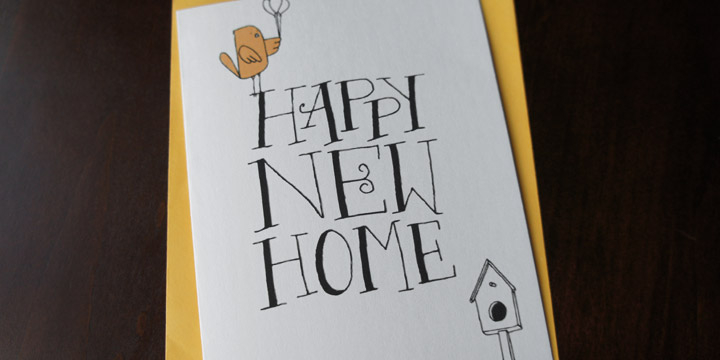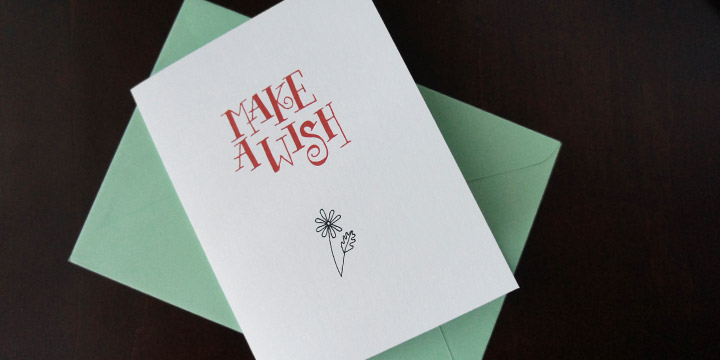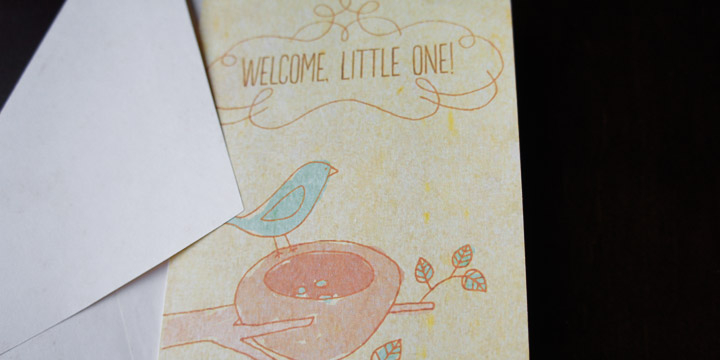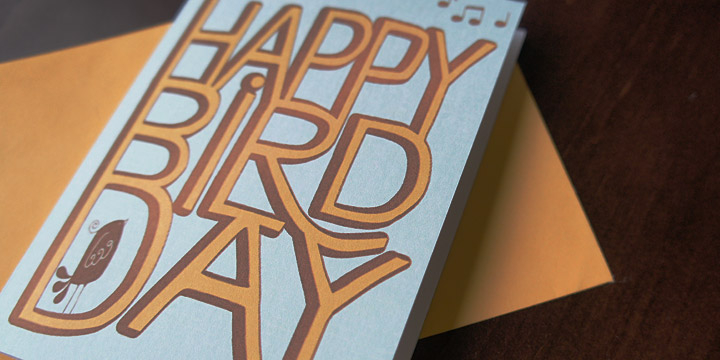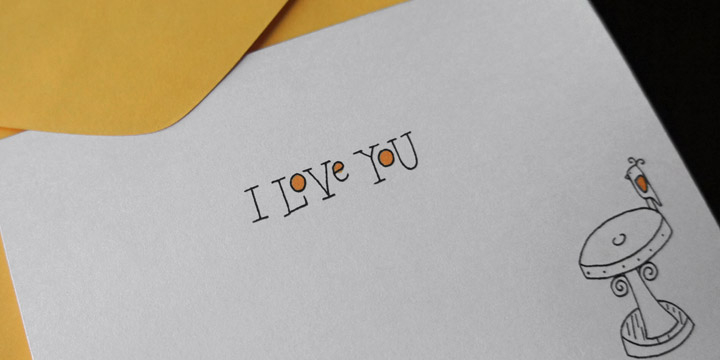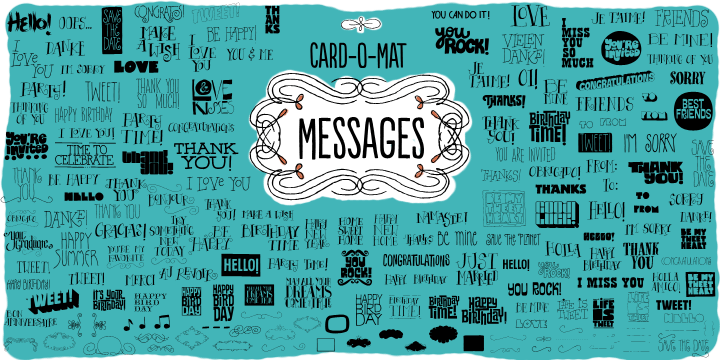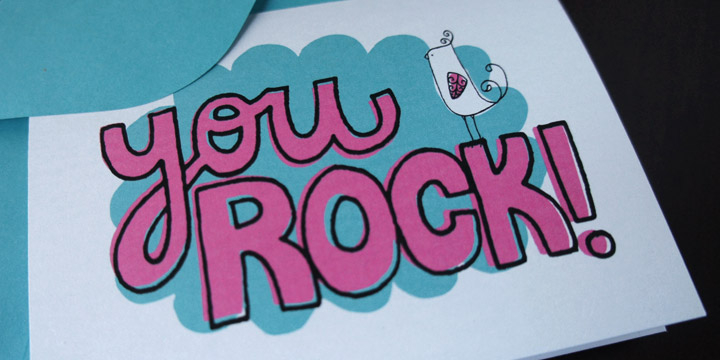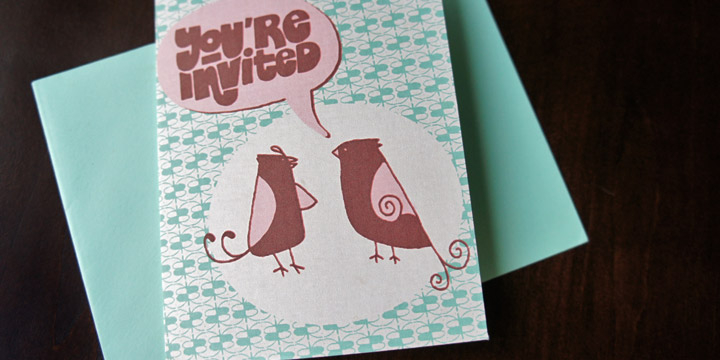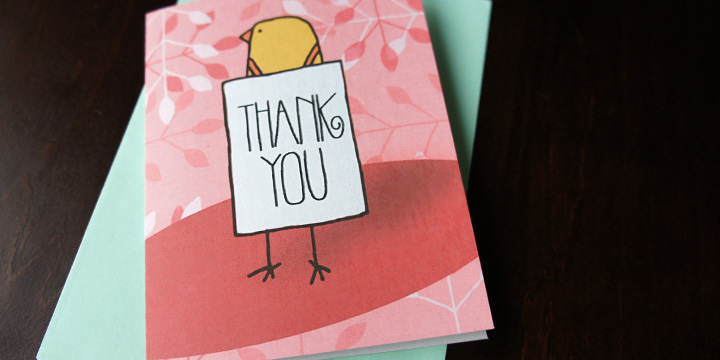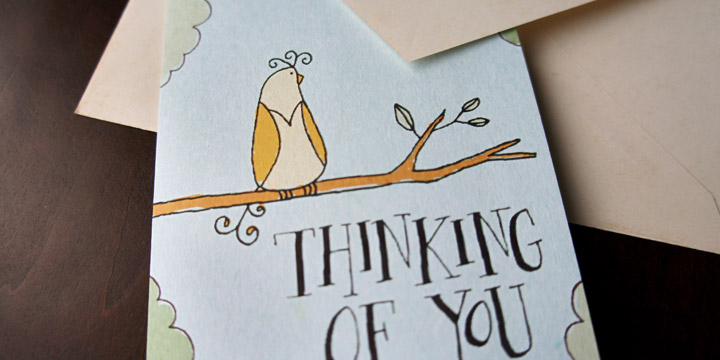
CardOMat is a dingbat font family. This typeface has two styles and was published by PintassilgoPrints.
is an inspiring font family that makes it easy to design awesome greeting cards for many occasions. Each font is packed with an impressive number of items:
Card-O-Mat Messages font counts more than 170 unique lettering designs, with a great assortment of messages. From an effusive ëHappy Birthdayí to a sensible ëThank Youí, you’ll find charming choices for many situations.
Card-O-Mat BuddyBirds brings more than 180 picture elements, comprising a pocketful of birds and handy adornments such as flowers, leaves, stars, clouds, speech bubbles and so on. Beyond making a perfect pair with Card-O-Mat Messages, it also goes brilliantly well with hand-crafted fonts like Populaire, Oyster, Berimbau, Amarelinha and many others. Pick the ones that fit you better and happy card making!